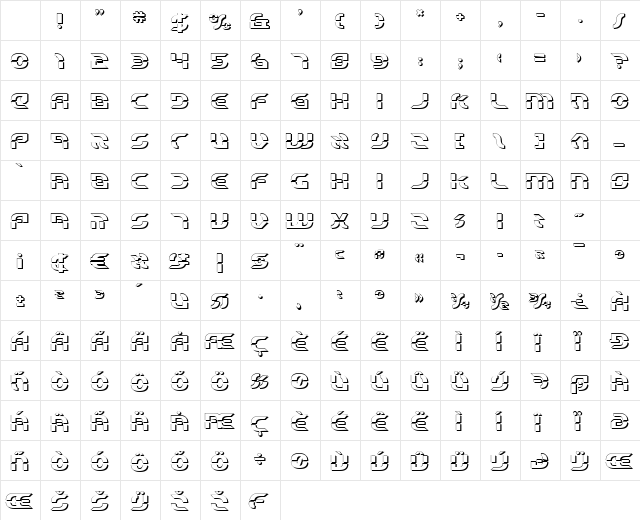
Complete Starfighter Beta 3D 3D glyph index. Displaying only characters natively supported by Starfighter Beta 3D 3D font.
Starfighter Beta 3D is a composed and adaptable typeface that performs quietly and consistently across a wide range of design contexts.